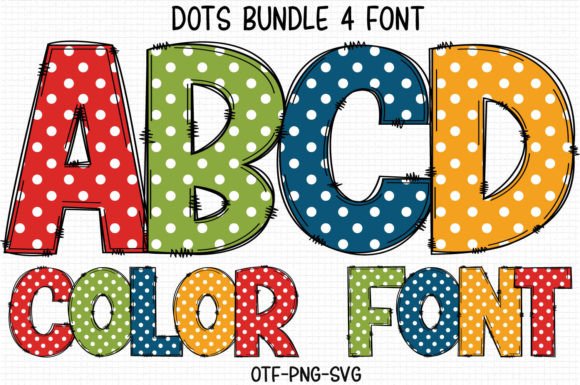
Introducing Red Dots Font by Color Studio, the ultimate choice for creating captivating and eye-catching designs! This colorful font is a must-have for anyone looking to elevate their creative projects to new heights.
With its sweet and friendly appeal, Red Dots Font adds a touch of playfulness to any design. Its natural and unique style sets it apart from the rest, making it a perfect fit for a wide range of projects. Whether you're designing for a children's book, a party invitation, or creating stunning graphics for your online store, this font is sure to leave a lasting impression.
Unleash your imagination and let Red Dots Font transform your creations into works of art. The possibilities are endless with this versatile font. From logo designs that demand attention to captivating social media posts, this font will take your designs to the next level.